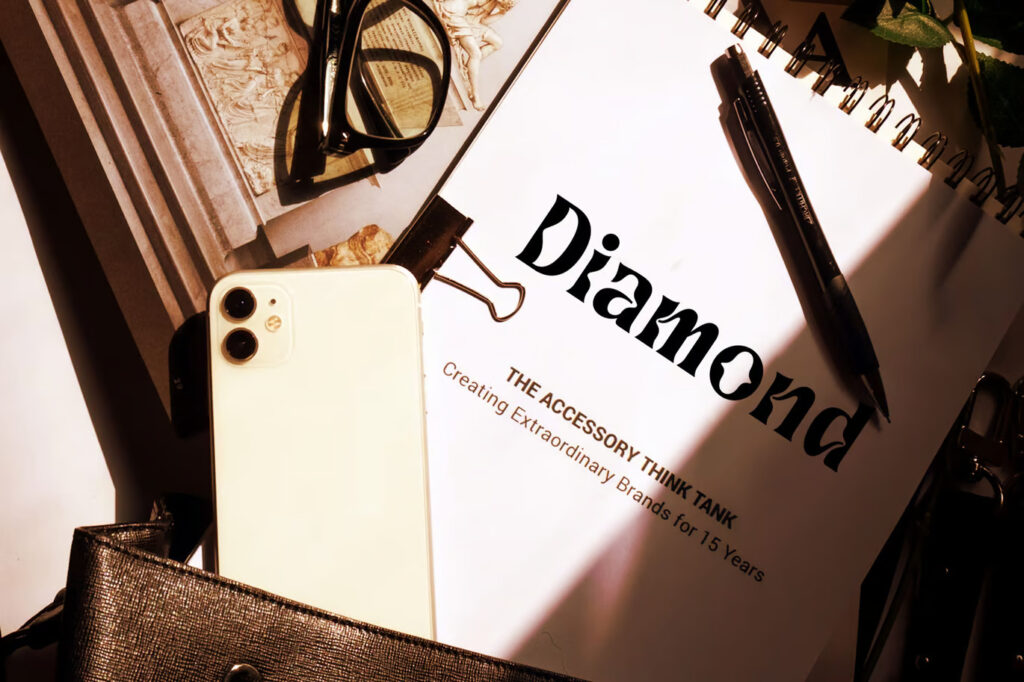
Pearny Unique Font
Pearny is a modern display font with a unique character. It brings boldness and distinction to typography, creating a striking yet elegant look. Perfect for creative endeavors, Pearny enhances chic and lifestyle designs such as logotypes, advertisements, photography watermarks, stationery, branding projects, magazines, invitations, corporate branding, product packaging, labels, and business projects—adding a distinctive touch.
Pearny Unique Serif Font